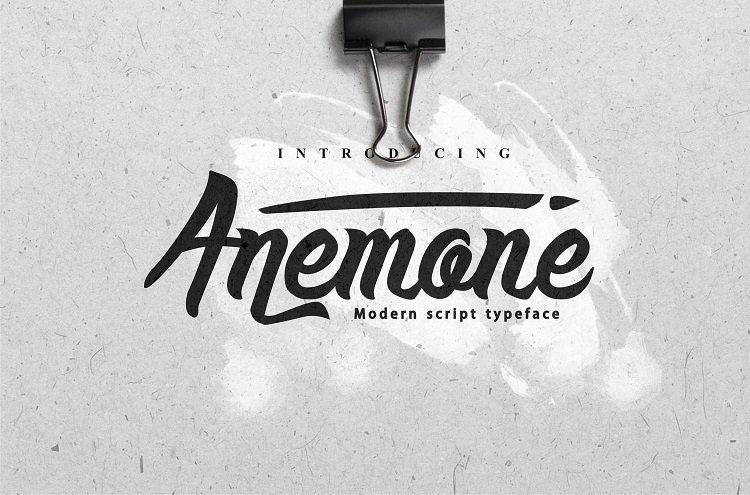
Anemone Script Font
Anemone Script Font – is a handwritten font, Anemone script is font specifically designed with a variety of alternate. Make your design to stand out with Anemone script! Great for logo design, clothing design, branding, posters, invitations and etc. Each glyph is authentic and has made by hand.